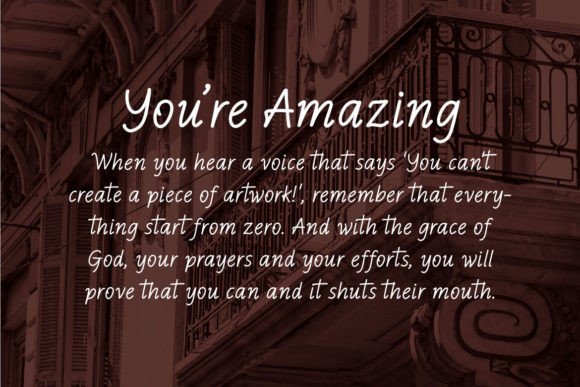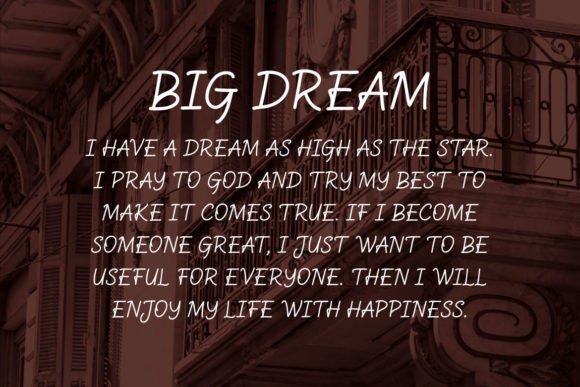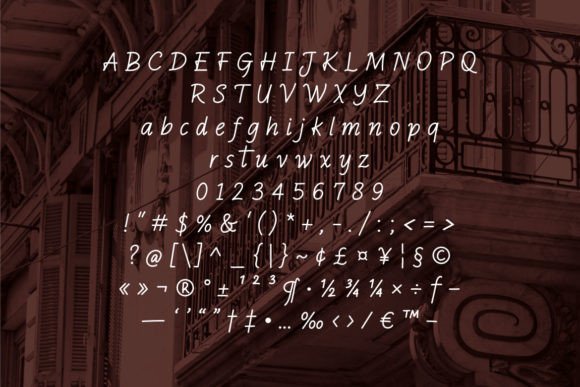
Introduction to Herd Ryno Font Font
Fonts play a crucial role in design, and the Herd Ryno Font font is a typeface that brings both character and versatility to any project. Whether you’re working on a branding project, a website, or a print design, the Herd Ryno Font font offers a unique style that can elevate your work.
**Herd Ryno** is a simple handwritten font.
**Herd Ryno** is a simple handwritten font. Herd Ryno can be used in any works such as flyer, book title, advertisement, social media content, logo and many more
Key Features of Herd Ryno Font Font
Why Choose Herd Ryno Font Font?
The Herd Ryno Font font is more than just a typeface – it’s a design tool that helps you communicate your message with style and clarity. Its unique character set and versatile design make it suitable for a wide range of applications, from elegant invitations to bold headlines.
With its carefully crafted letterforms and balanced proportions, the Herd Ryno Font font ensures readability and visual appeal across all mediums.
What makes Herd Ryno Font font special?
The Herd Ryno Font font stands out with its unique design, exceptional readability, and versatility across various design applications.